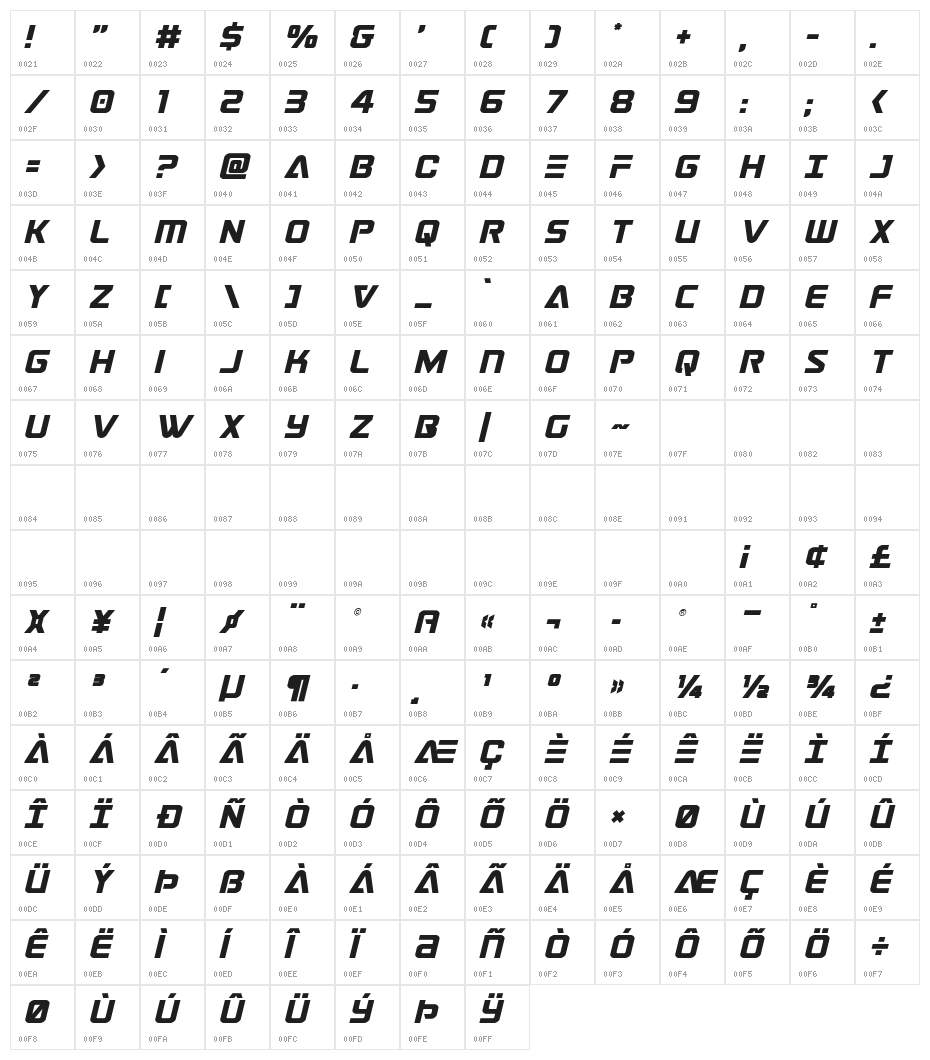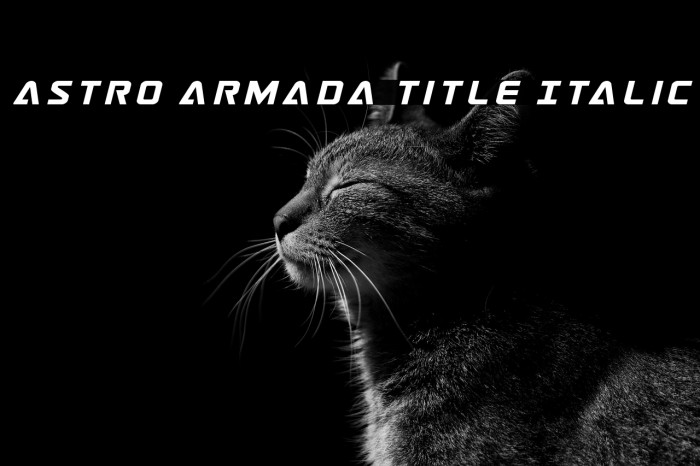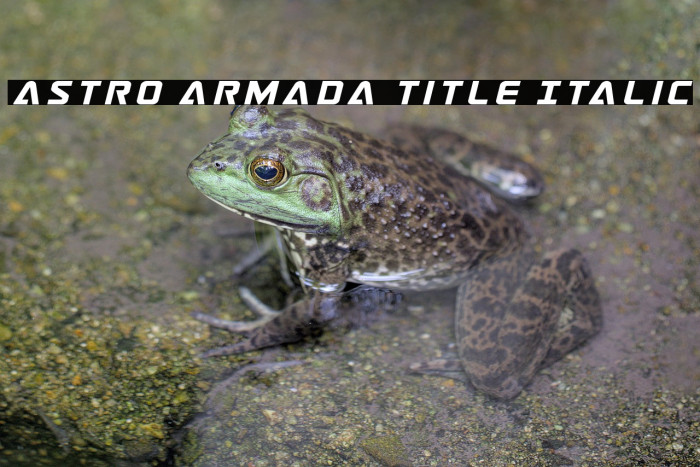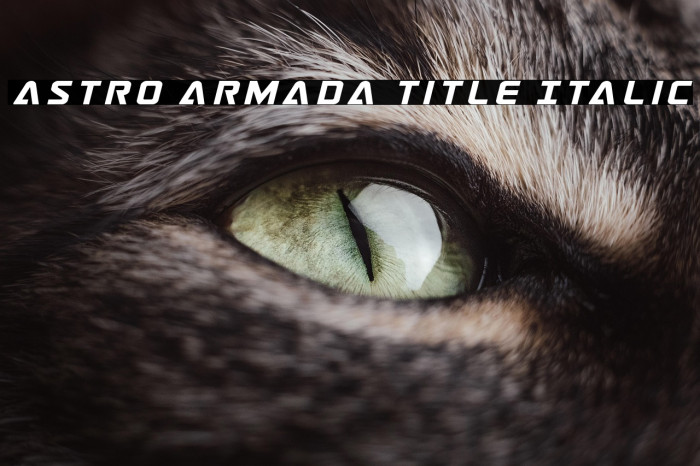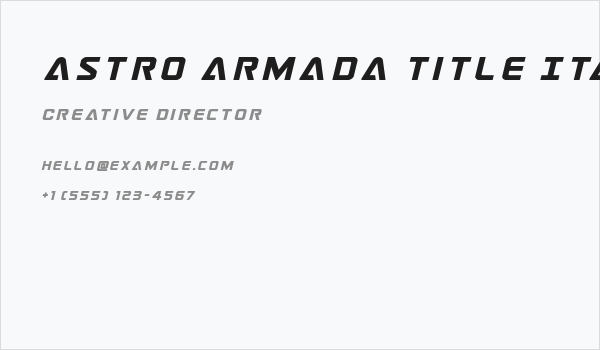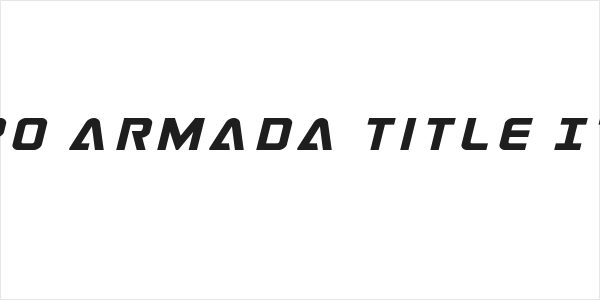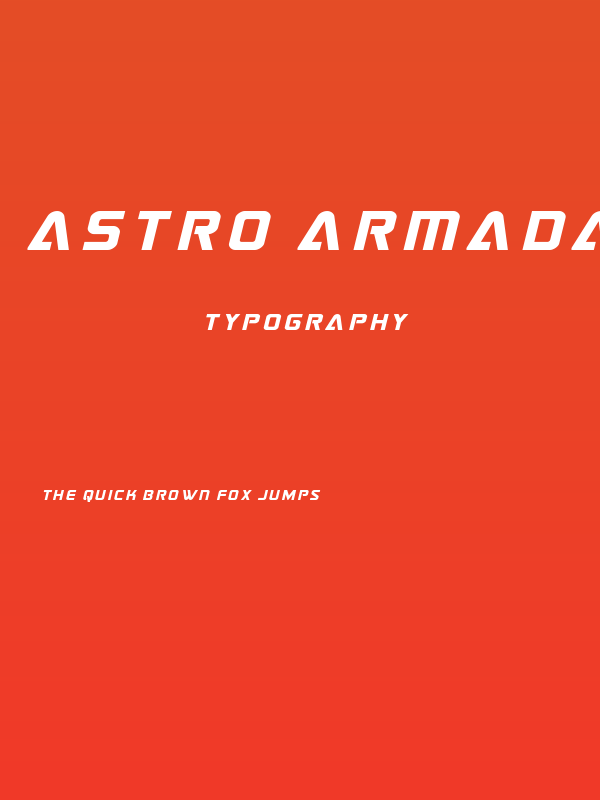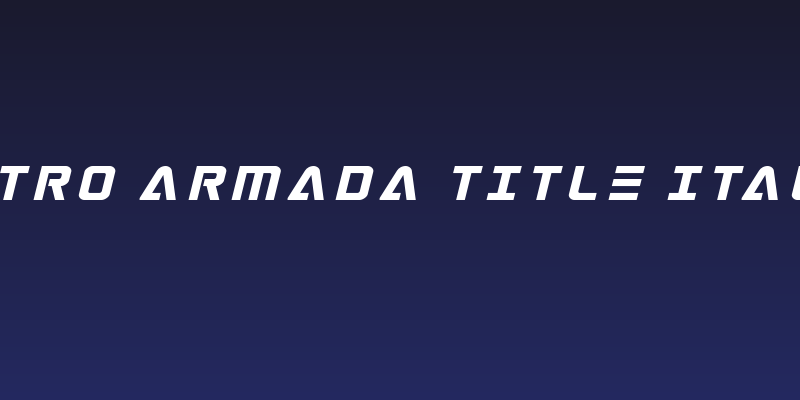
Astro Armada Title Italic Font
Astro Armada Title Italic Description
This font features a futuristic and dynamic design, characterized by its italicized and angular letterforms. The uppercase and lowercase letters exhibit a consistent slant, giving a sense of motion and speed. The strokes are bold and uniform, with a slight geometric influence that adds to its modern appeal. The numbers and special characters maintain the same stylistic approach, ensuring a cohesive look across all glyphs. The overall design is sleek and contemporary, making it suitable for projects that require a cutting-edge and energetic aesthetic.
| Proposed Projects | Ideal for sci-fi themed projects, video game titles, technology branding, and modern advertising campaigns. |